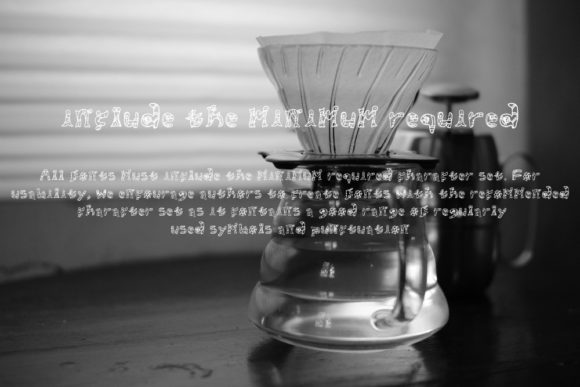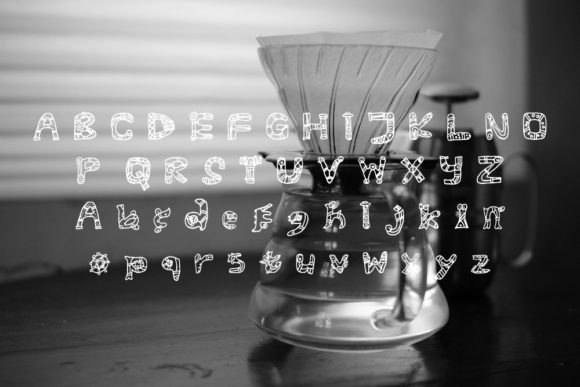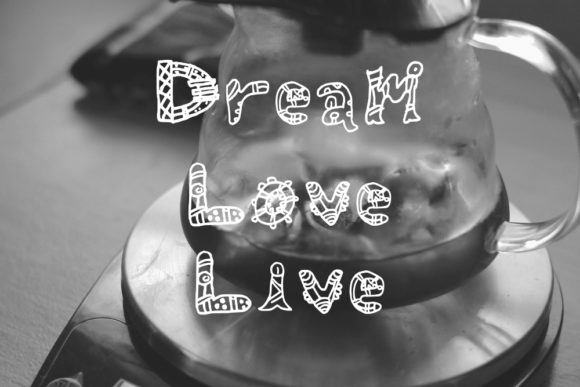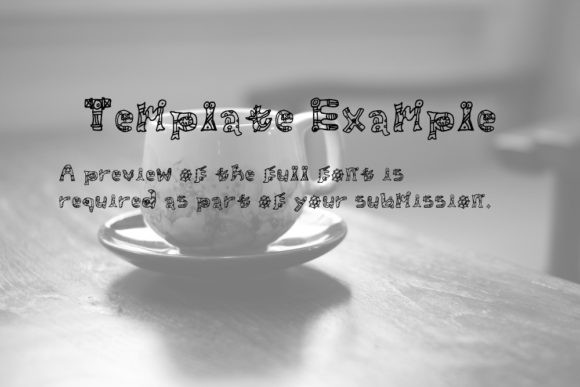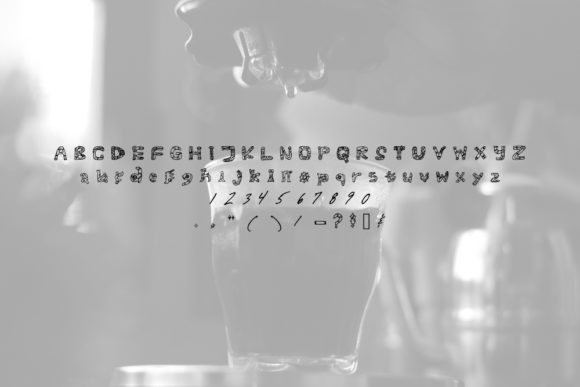
Unleash Your Creativity with Aztec Legion Font
Are you a designer, crafter, or DIY enthusiast looking for a unique and fun font to elevate your projects? Look no further than Aztec Legion Font! This exciting display font features a range of playful characters that are sure to add a touch of personality to your designs.
What is Aztec Legion Font?
Aztec Legion Font is a carefully crafted display font that is perfect for creating eye-catching designs. Its fun and quirky characters are inspired by the ancient Aztecs, but with a modern twist. The font is designed to be highly legible, making it ideal for use in a variety of projects, from posters and flyers to crafts and DIY tutorials.
Key Features of Aztec Legion Font
- Fun and playful characters: Aztec Legion Font features a range of fun and playful characters that are sure to add a touch of personality to your designs.
- Highly legible: The font is designed to be highly legible, making it easy to read and understand.
- Perfect for display text: Aztec Legion Font is ideal for use in display text, such as headings, titles, and captions.
- Supports multiple languages: The font supports multiple languages, making it a great choice for designers and crafters who work with international clients or projects.
Why Choose Aztec Legion Font?
So why choose Aztec Legion Font for your next project? Here are just a few reasons:
- Add a touch of personality: Aztec Legion Font is the perfect way to add a touch of personality to your designs. Its fun and quirky characters are sure to make your projects stand out.
- High-quality design: Aztec Legion Font is designed to high-quality standards, ensuring that your projects look professional and polished.
Project Ideas Using Aztec Legion Font
Aztec Legion Font is perfect for a wide range of projects, including:
- Posters and flyers: Use Aztec Legion Font to create eye-catching posters and flyers for events, promotions, or announcements.
- Crafts and DIY tutorials: Add a touch of personality to your craft and DIY tutorials with Aztec Legion Font.
- Social media graphics: Use Aztec Legion Font to create fun and engaging social media graphics.
- Logos and branding: Aztec Legion Font can be used to create unique and memorable logos and branding materials.
| Font Name | Aztec Legion Font |
| Author | Gblack Id |
Aztec Legion Font is a fun and exciting display font that is perfect for designers, crafters, and DIY enthusiasts. Its playful characters and highly legible design make it ideal for use in a wide range of projects. Whether you’re looking to add a touch of personality to your designs or create eye-catching display text, Aztec Legion Font is the perfect choice.